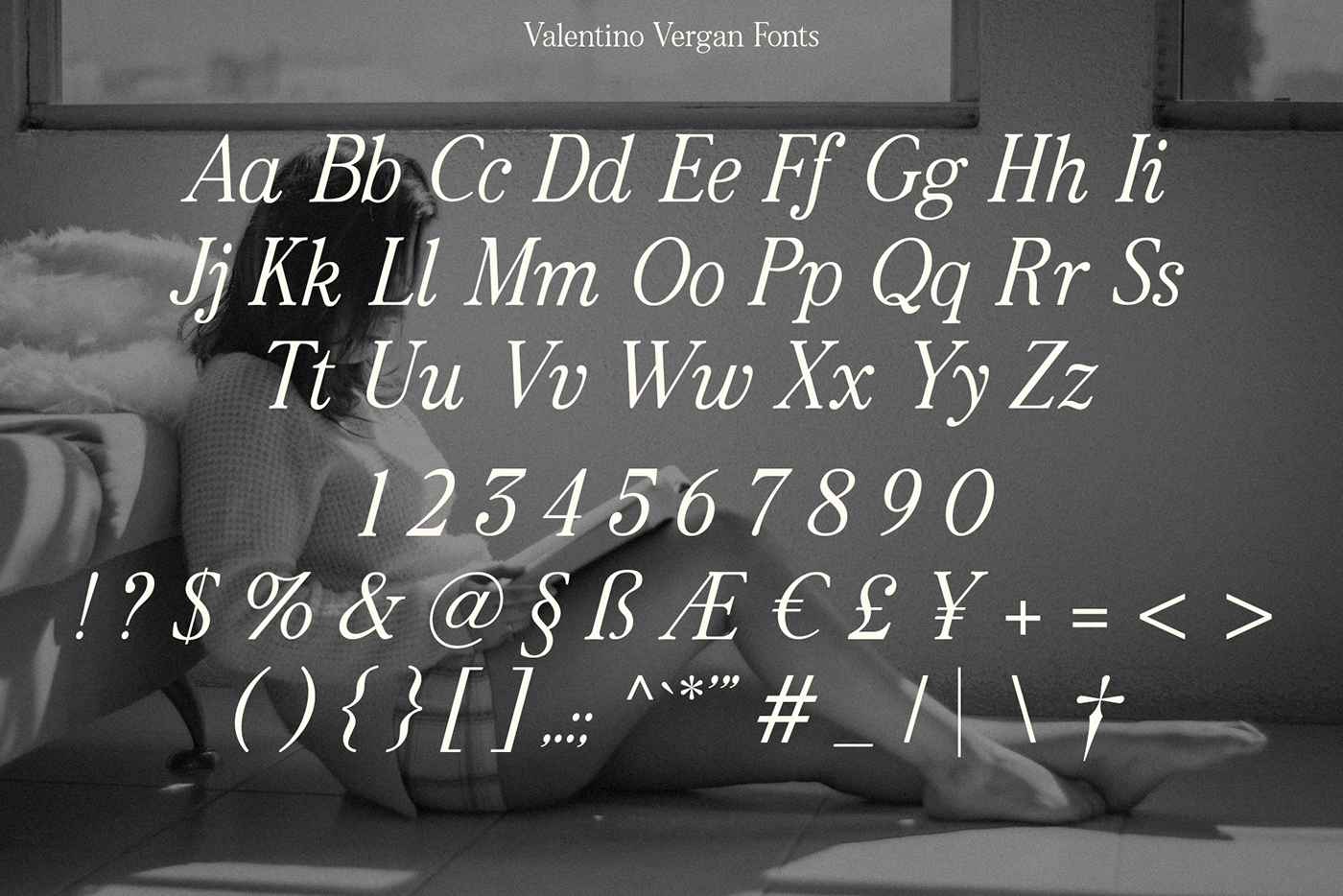
Beautiful Nostalgia by Valentino Vergan is an elegant resto inspired serif, which comes with a complementary italic version. This typeface is a perfect mix of a nostalgic vintage look with a modern look. This unique combination makes the typeface trendy and creative, perfect for your next project. The Beautiful Nostalgia typeface is also designed to look great in both large and small settings, making it great for headlines and editorials. This typeface was made with creative ligatures and alternative characters, which makes it perfect for creating nostalgic and elegant designs such as: mastheads, magazines, feminine logos, wedding invitations, Instagram posts, websites, blog posts, pull quotes, editorials and more.